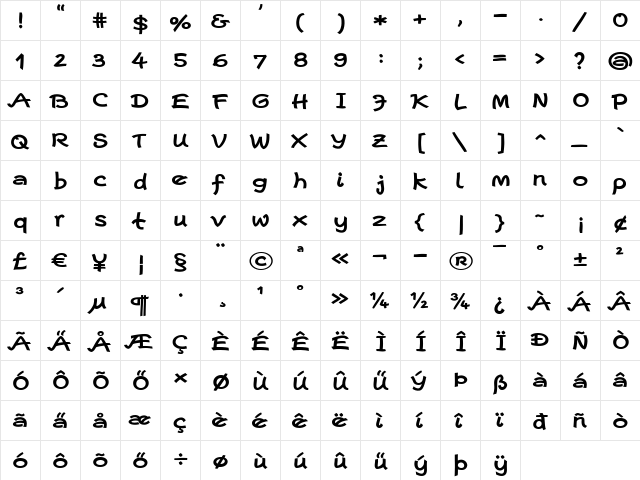
Escript LT Bold
| Foundry | Linotype Library GmbH or its affiliated companies |
Design Context for Escript LT Typeface
Escript LT brings a calligraphic fluidity to the page — its connecting strokes and expressive curves give it an unmistakably human quality. The heavy weight commands attention and anchors typographic hierarchies.